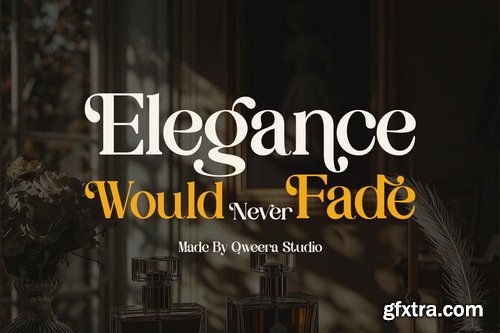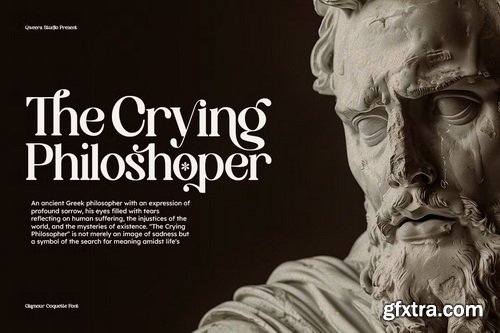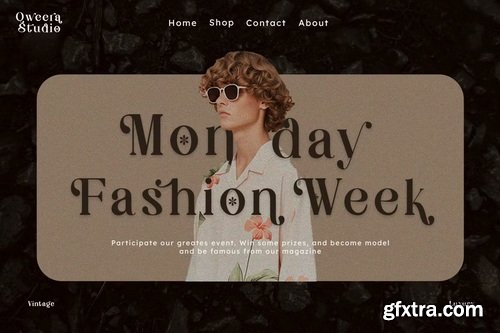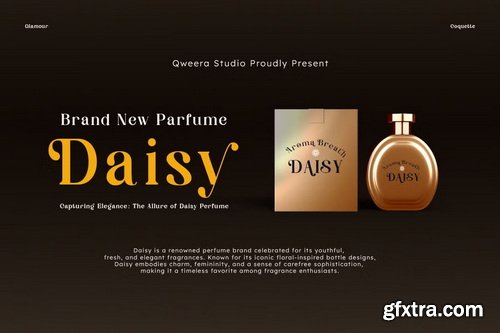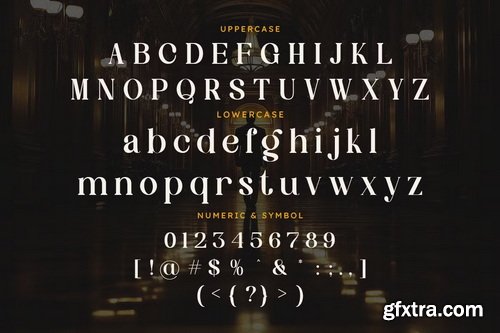
CreativeMarket - Glamour Coquette - Elegant Vintage Font
Introducing Glamour Coquette, a sophisticated elegant vintage serif font that blends classic charm with modern refinement. Designed with alternates and ligatures, this typeface offers flexibility for crafting high-end branding, editorial layouts, and luxurious print designs. Whether for posters, magazines, logos, or invitations, Glamour Coquette elevates your visuals with timeless beauty and graceful typography. Its ornate yet readable style makes it ideal for designers seeking a font with elegance, versatility, and premium aesthetics. Perfect for branding, luxury packaging, and classic-themed designs, this serif font exudes sophistication and artistic finesse.